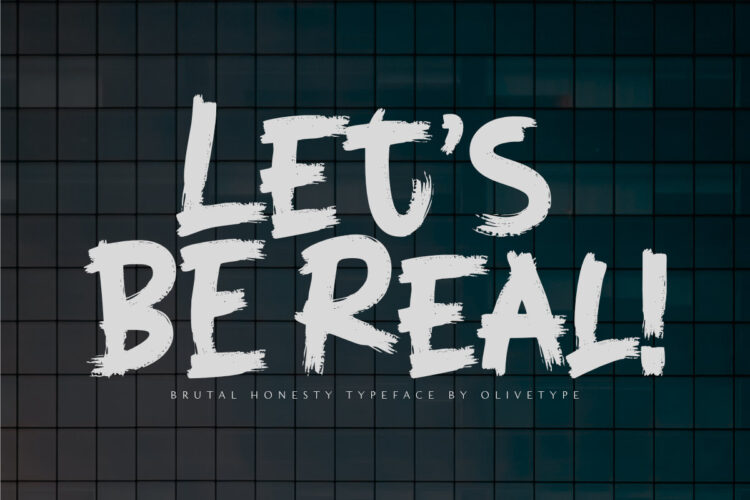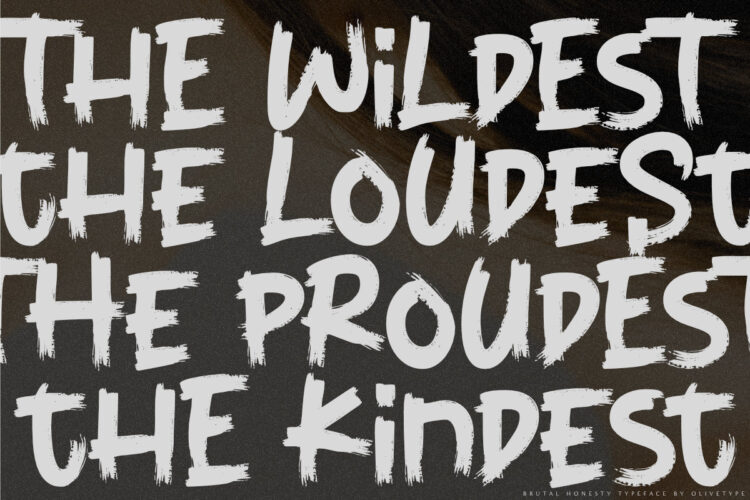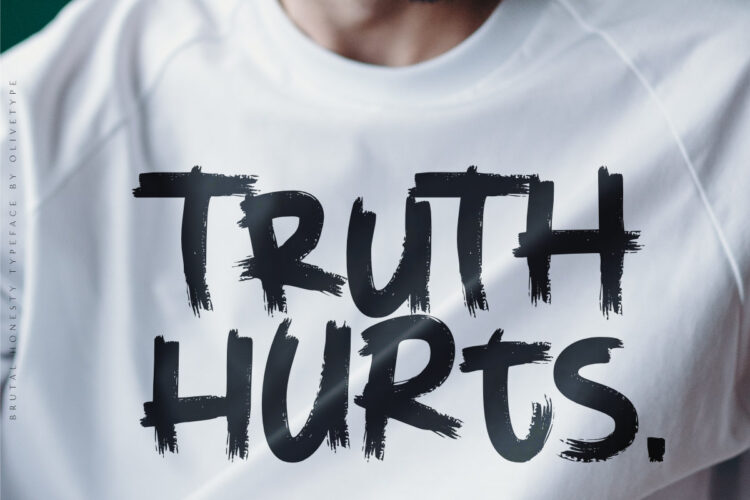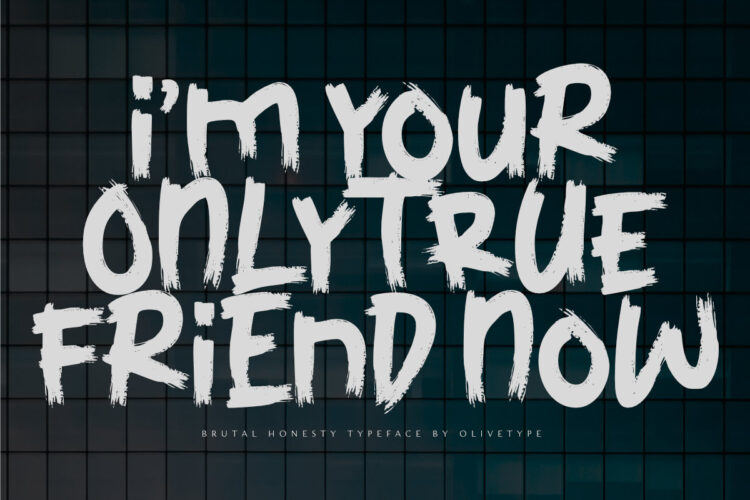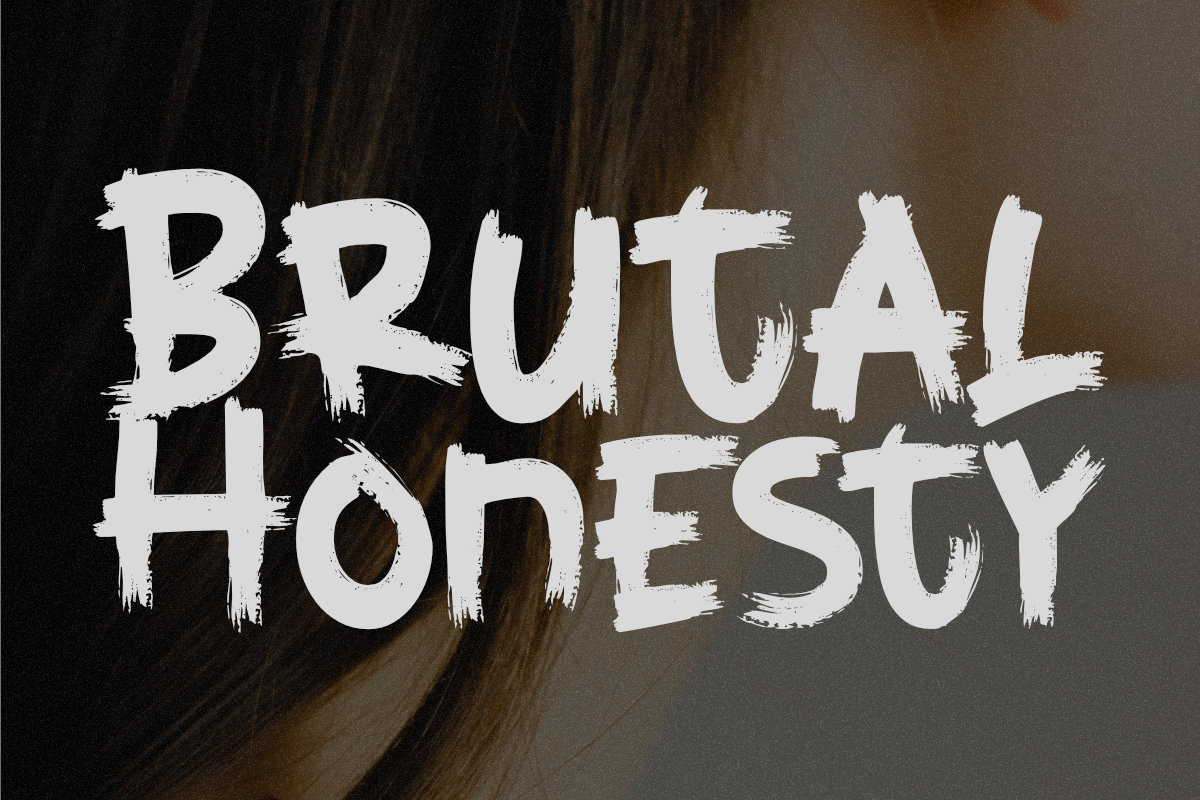
Brutal Honesty is a simple handwritten brush typeface. Carefully handcrafted to grab the attention of the viewers, this font is ideal for logos, posters, headlines, branding, apparel and so much more.
This brush typeface is supporting Multi-Languages, which include: Afrikaans Albanian Catalan Danish Dutch English Estonian Finnish French German Italian Norwegian Portuguese Spanish Swedish Zulu.